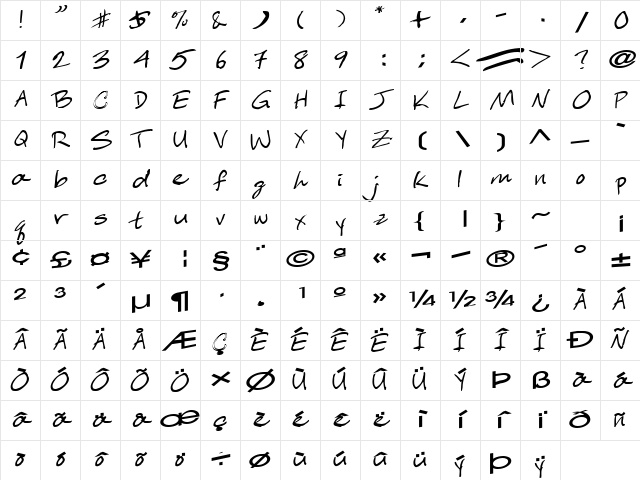
Complete SleepWalkerFinal9 Bold glyph index. Displaying only characters natively supported by SleepWalkerFinal9 Bold font.
SleepWalkerFinal9 is a composed and adaptable typeface that performs quietly and consistently across a wide range of design contexts. Its bold stroke weight gives it real presence on the page.